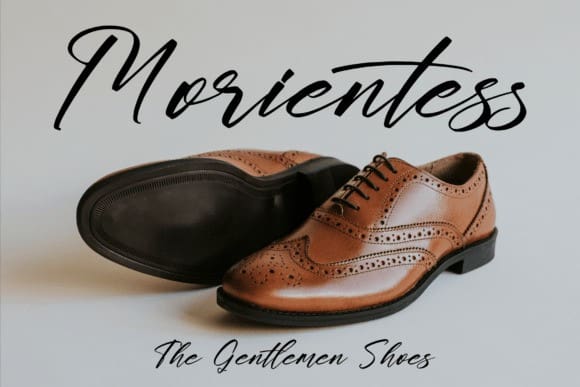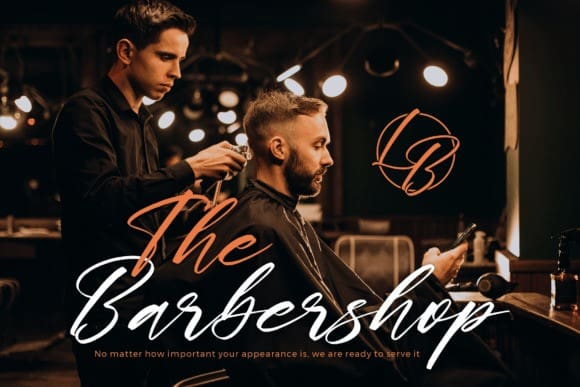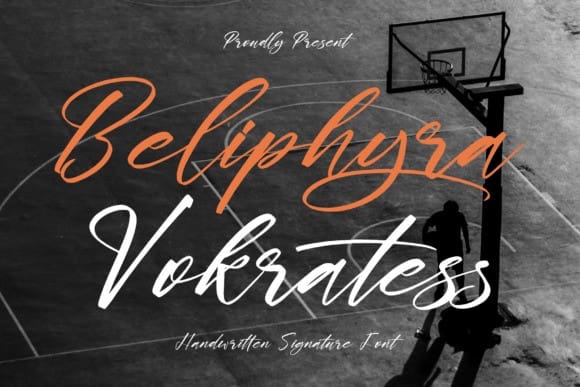
Beliphyra Vokratess Font
Beliphyra Vokratess Font – Handwritten Signature Font , from Glorytype Studio, suitable for any projects such as: logos, branding projects, homeware designs, product packaging, mugs, quotes, posters, shopping bags, t-shirts, book covers, name card, invitation cards, greeting cards, label, photography, watermark, special events, and all your other lovely projects that need a beautiful script taste.